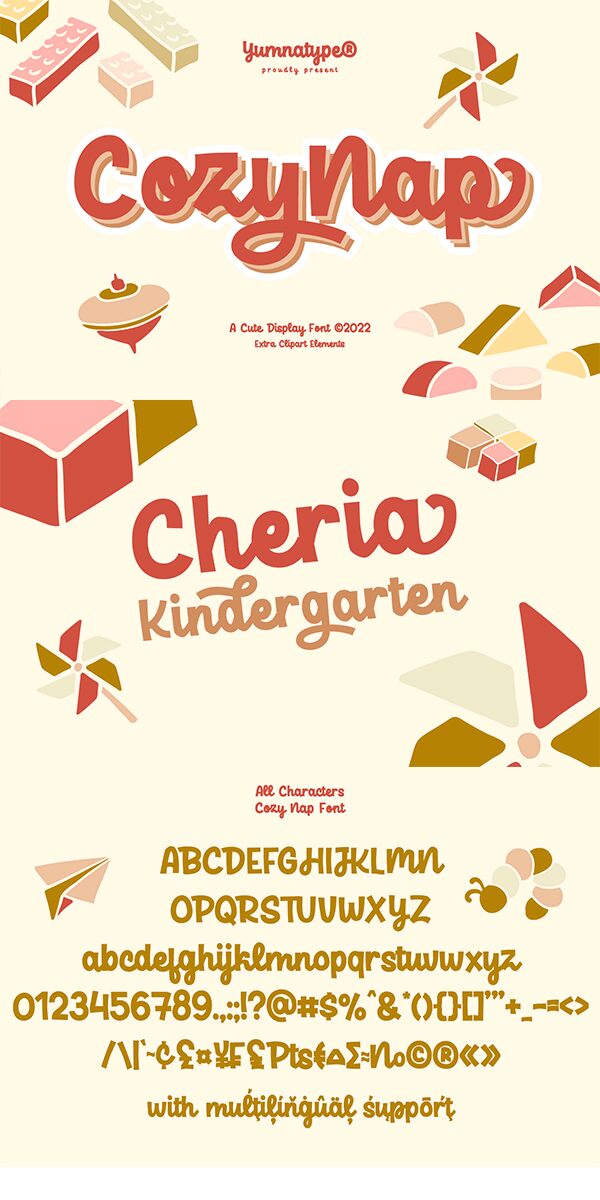
Cozy Nap, a charming and whimsical font designed by Yumna Family, brings a touch of playfulness to any project.
Its bold weight adds emphasis and personality, making it perfect for children's book covers that come alive with delightful tales. With its cute script style, Cozy Nap also lends itself effortlessly to greeting cards, bringing warmth and affection in every handwritten message.
Add a sprinkle of coziness to your designs with Cozy Nap – the font that whispers sweet dreams and sparks joy in all who encounter it.